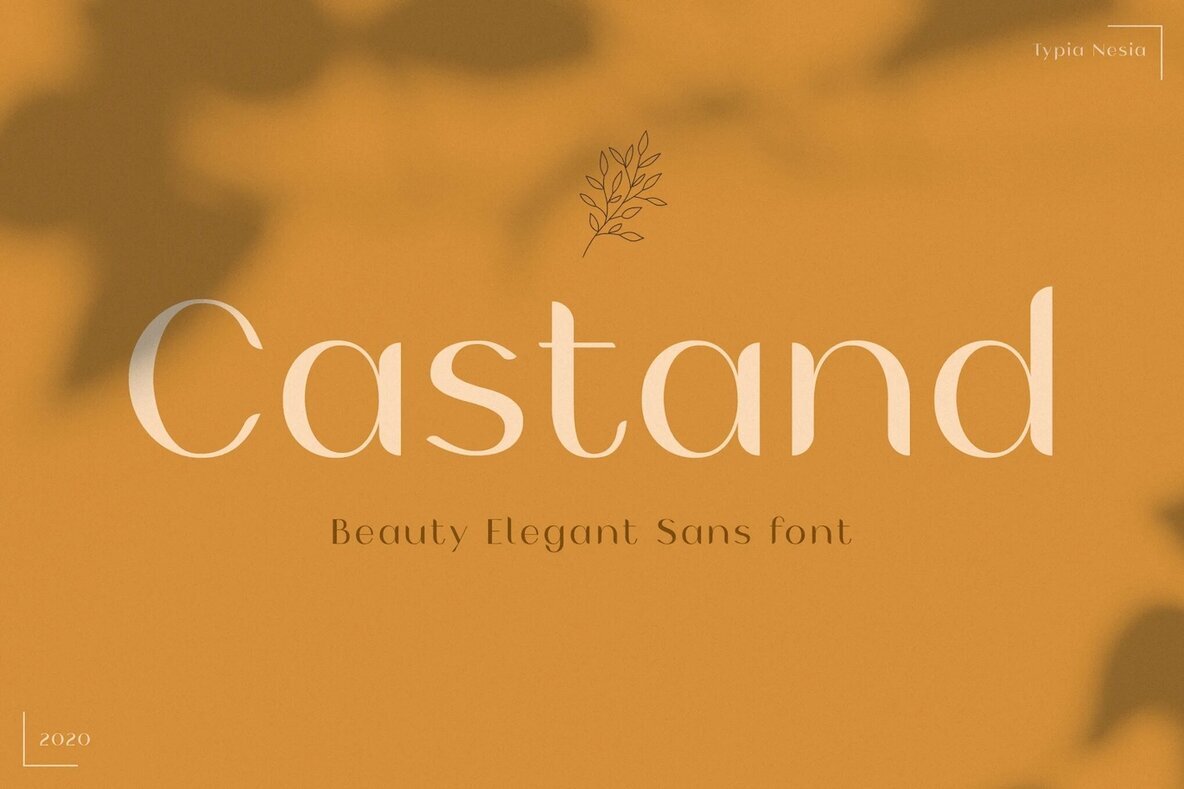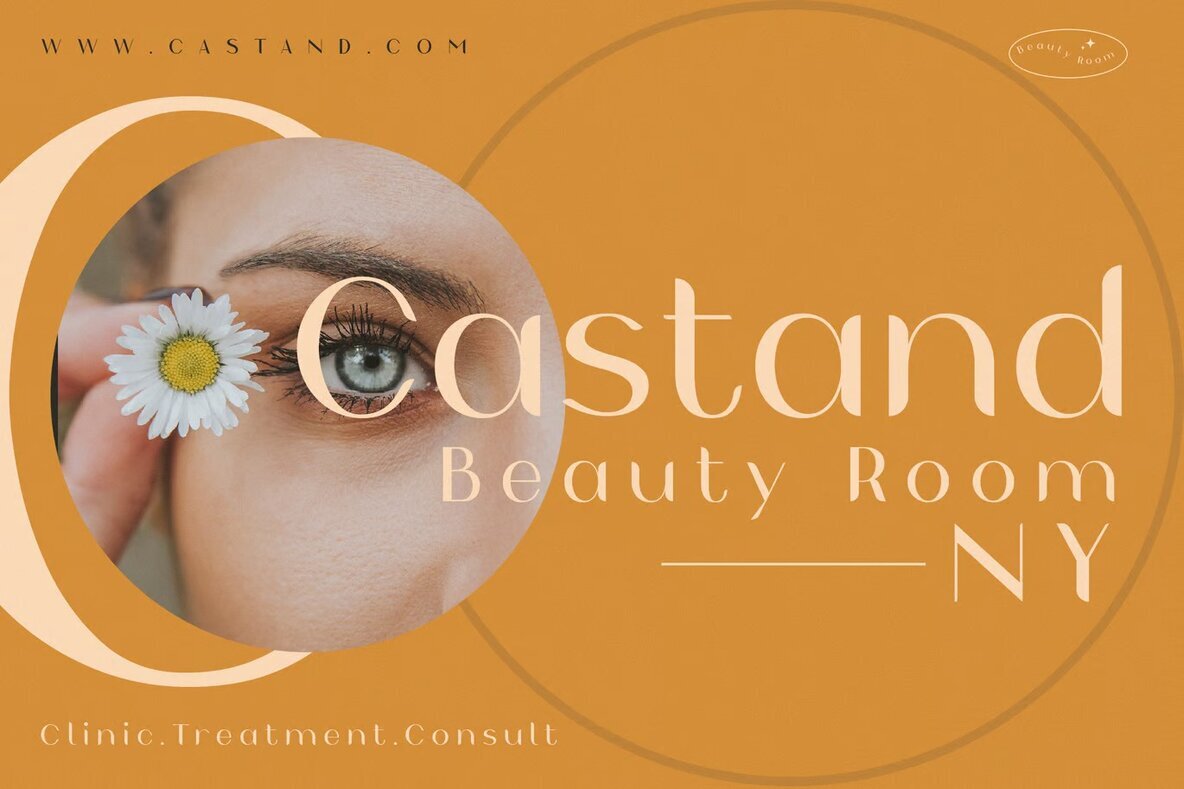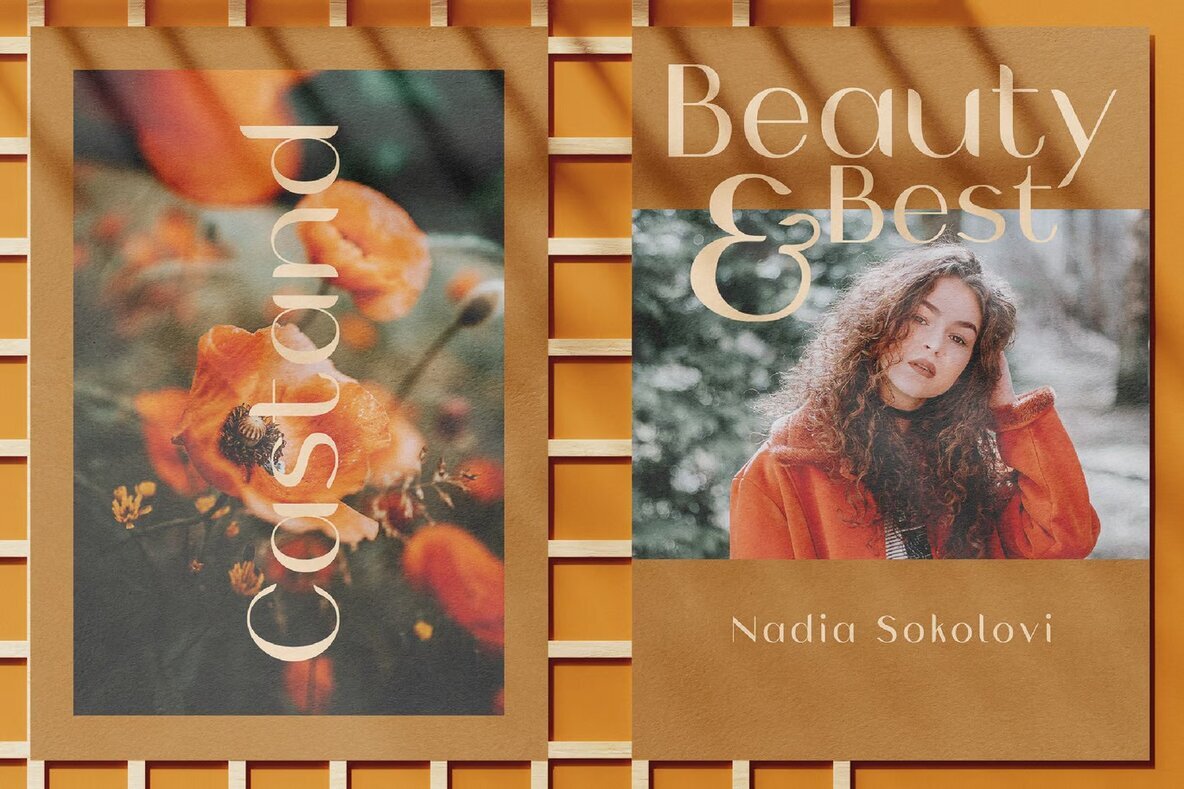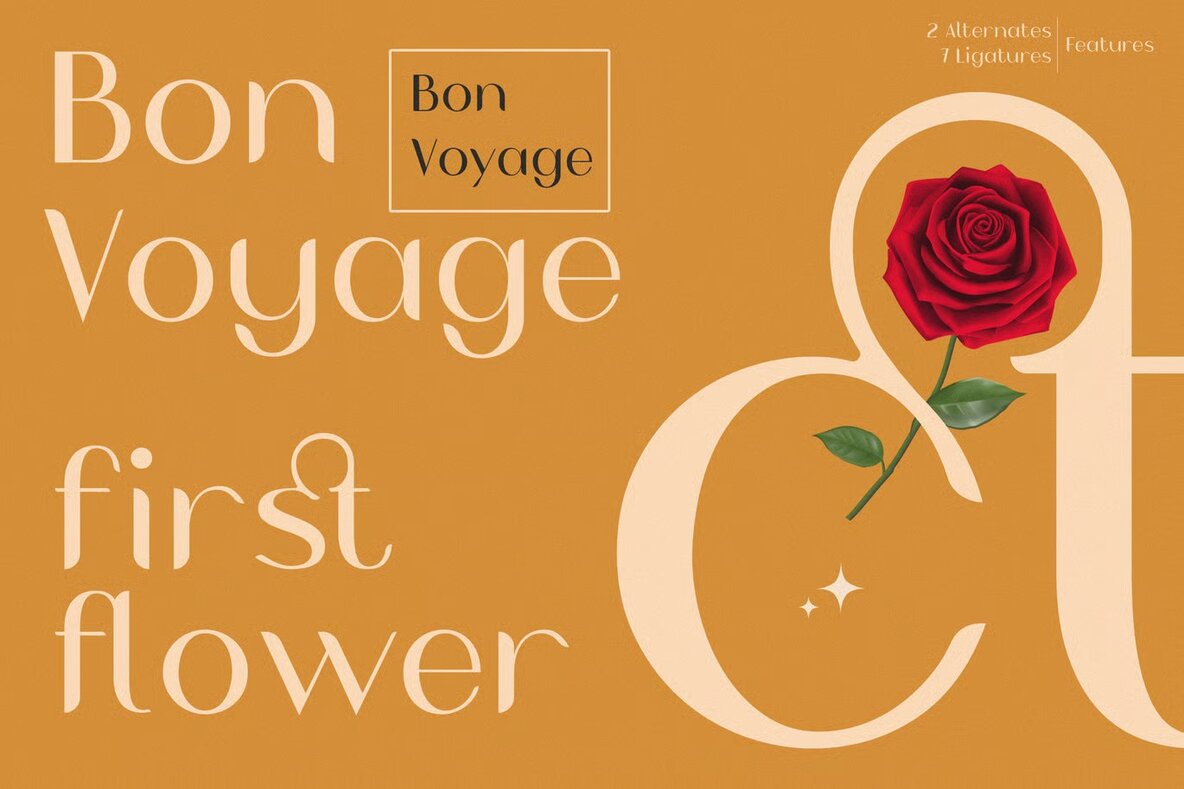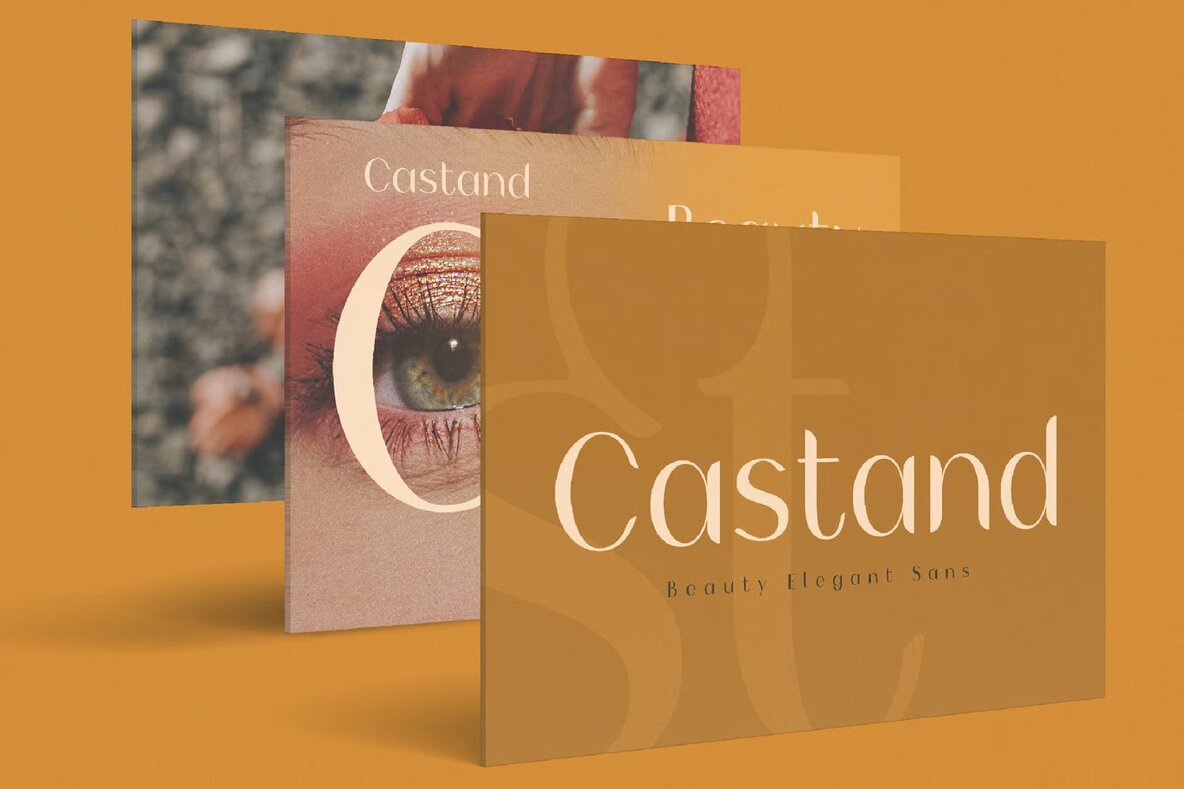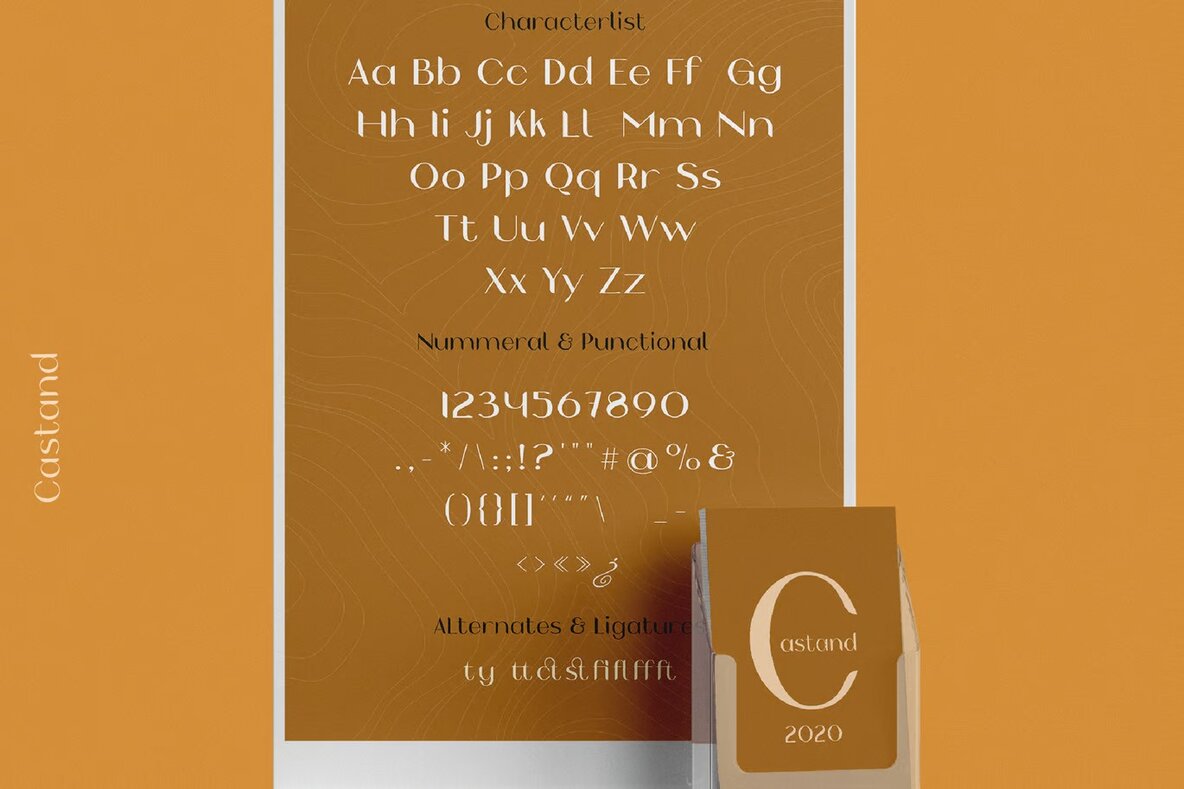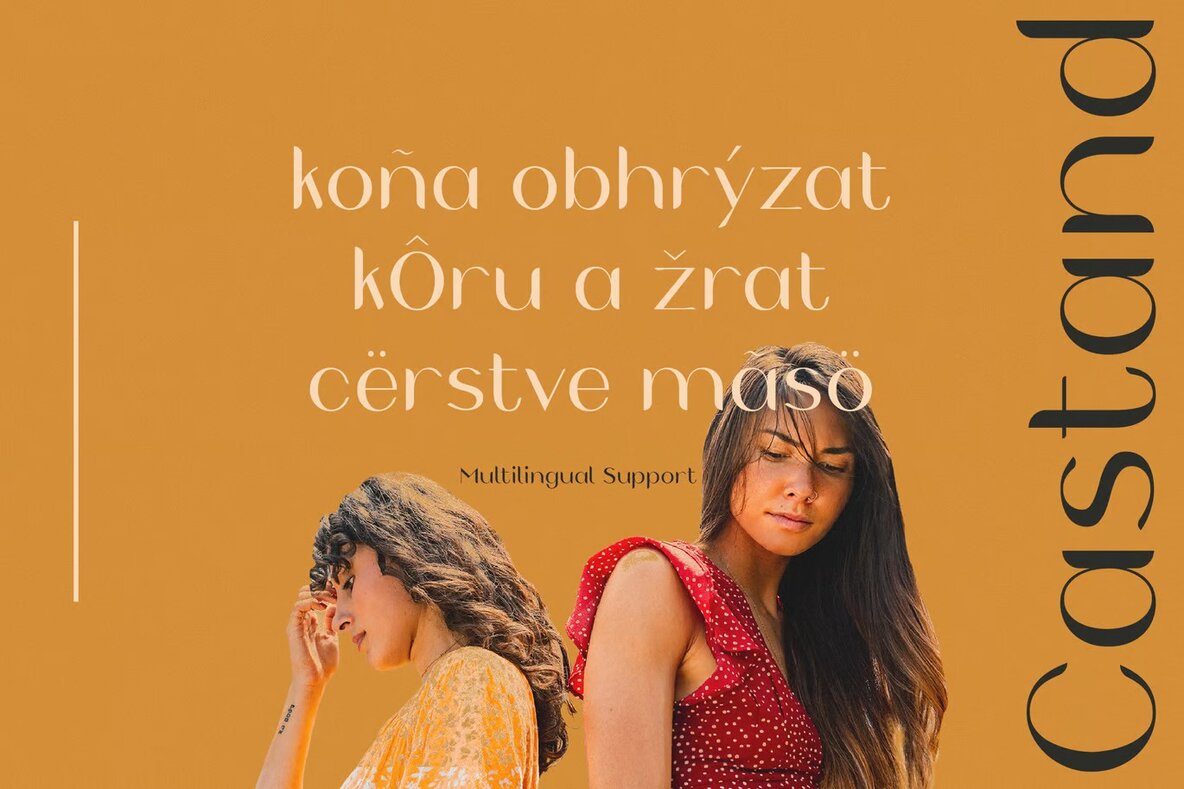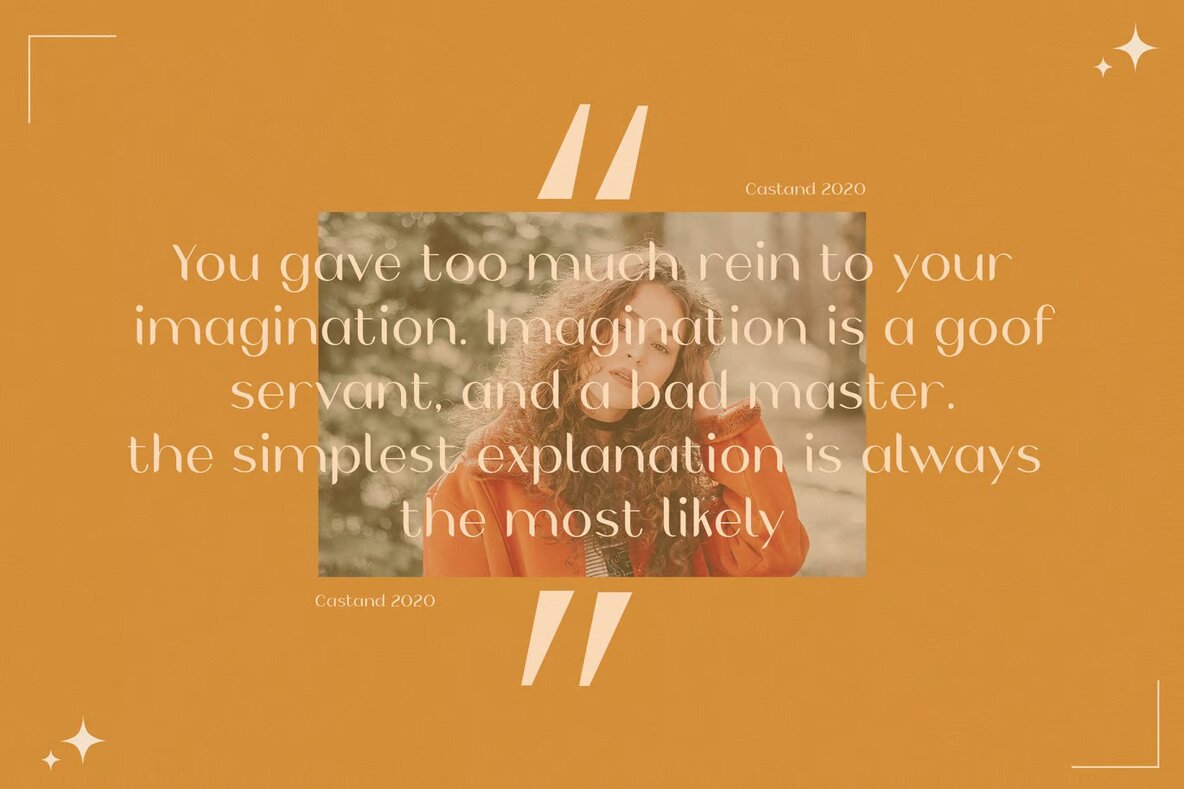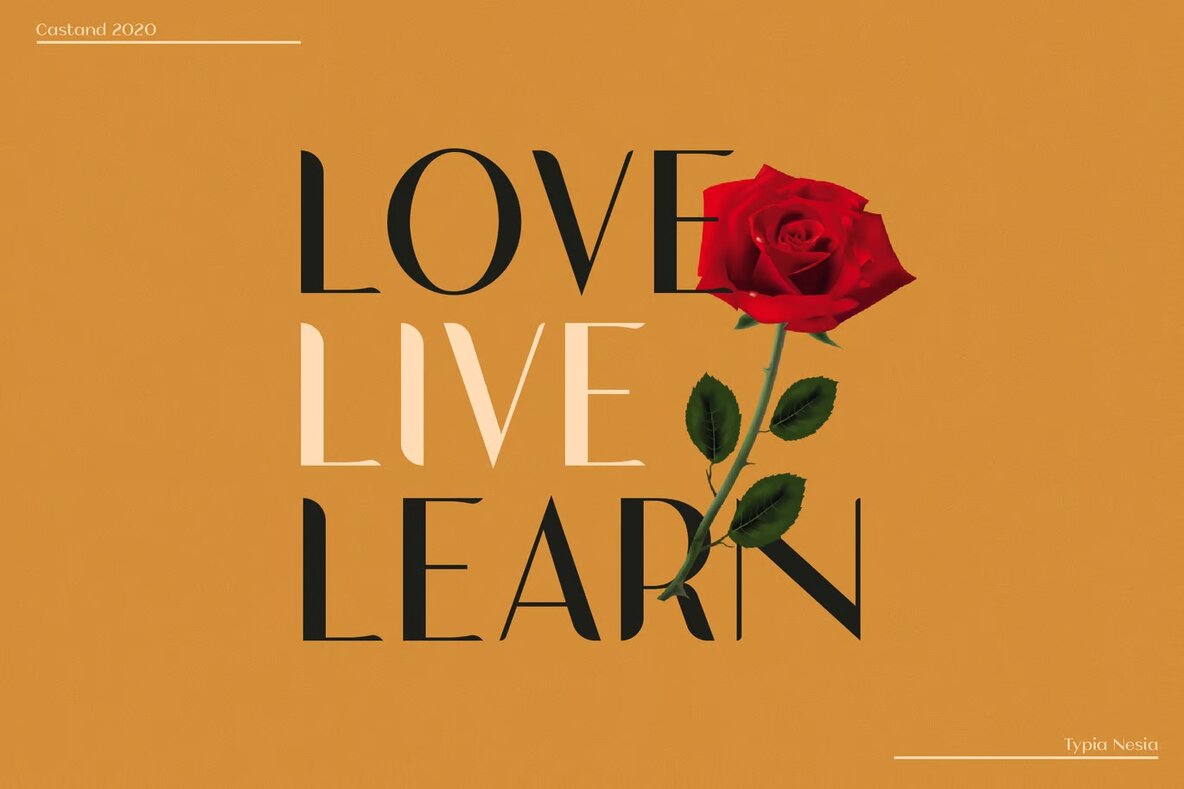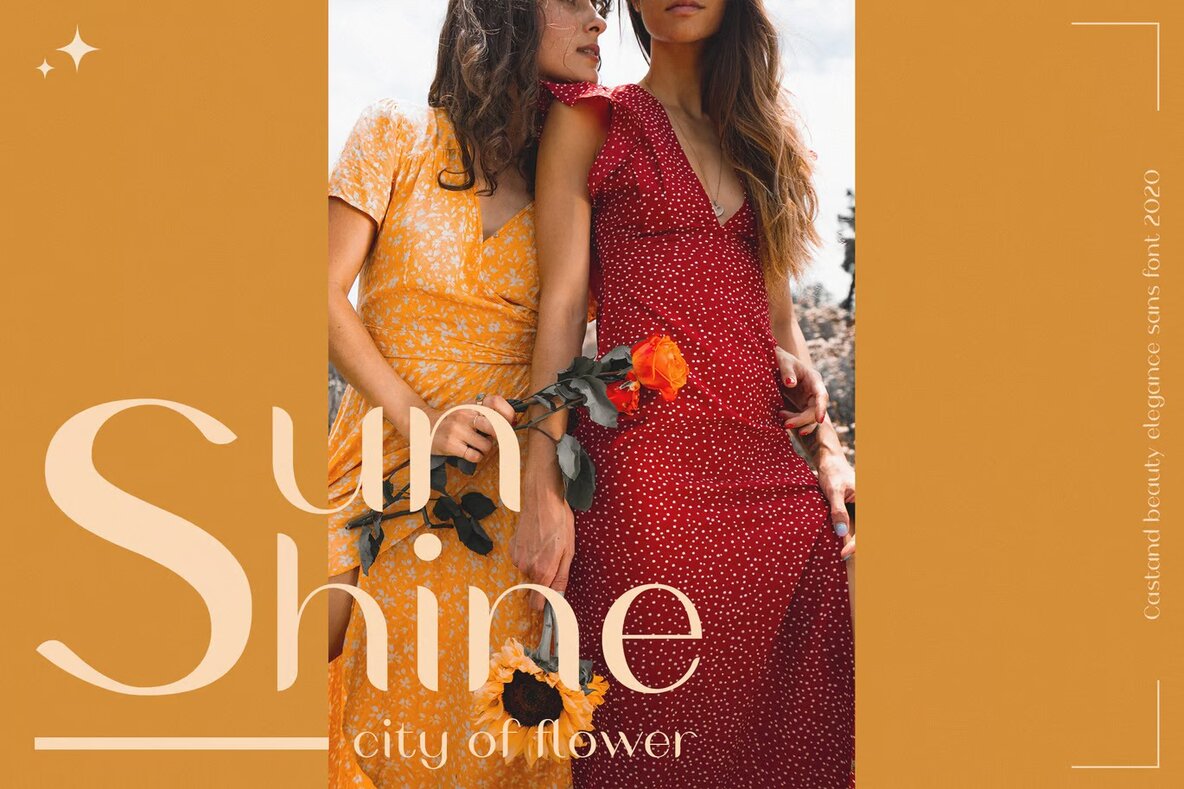
Castand Font
Castand Sans is an elegant and sophisticated sans serif font, ideal for a range of design projects. Its clean lines and refined style make it perfect for luxury logo branding, editorial design, and upscale stationery. The font's modern touch complements fashion and beauty advertisements, ensuring your projects stand out with a touch of femininity and grace.
Whether you're working on blog or website design, creating chic card invitations, or crafting art quotes, Castand Sans offers versatility and charm. It’s also an excellent choice for home decor, book or cover titles, and special events like weddings and birthdays. With its timeless elegance, Castand Sans enriches any design with a luxurious flair.